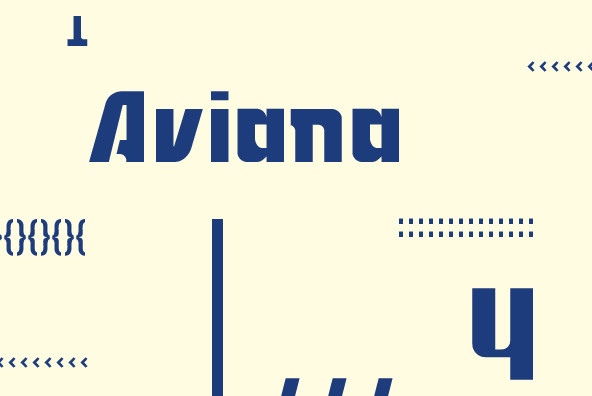
Aviana Font
Aviana Font is perfect for aviation academy branding, airline company logos, aerospace engineering presentations, flight training school materials, aviation museum exhibitions, pilot certification documents, aircraft manufacturer signage, airport wayfinding systems, aviation photography studios, and sky-themed luxury brands. This soaring typeface excels in applications where aviation excellence, flight inspiration, and celestial aspirations are fundamental brand messaging elements.
What makes Aviana Font exciting is its graceful embodiment of flight through elegant letterforms that capture the effortless beauty of soaring through endless skies and the precision engineering that makes human flight possible. The font features streamlined character construction with subtle aerodynamic details and uplifting proportions that immediately convey both technical competence and the inspiring freedom of flight. Its sophisticated presence makes it perfect for brands that celebrate the miracle of aviation while maintaining the professional credibility essential for the aerospace industry.
The Aviana Font family typically includes comprehensive weight options from Light to Bold, often featuring condensed variations that accommodate technical aviation documentation and space-efficient cockpit display requirements. Many versions include alternate characters with enhanced aerodynamic styling, decorative elements inspired by aircraft design and cloud formations, and special symbols related to navigation and flight instrumentation. Some collections feature outline variations and dynamic effects that amplify the soaring, uplifting quality for aviation marketing and educational applications.
Whether you're developing brand identities for aviation companies, creating educational materials for flight training programs, or designing content that celebrates the wonder of human flight and aerospace achievement, Aviana Font Free Download provides the inspiring aviation character that resonates with pilots, aviation enthusiasts, and those who dream of touching the sky. Its uplifting presence makes it ideal for organizations that inspire the next generation of aviators while honoring the rich heritage of flight innovation. The font's ability to convey both technical precision and soaring inspiration makes it particularly valuable for flight schools, aviation museums, and aerospace companies seeking to attract passionate individuals who understand that aviation represents humanity's greatest triumph over the limitations of earthbound existence.